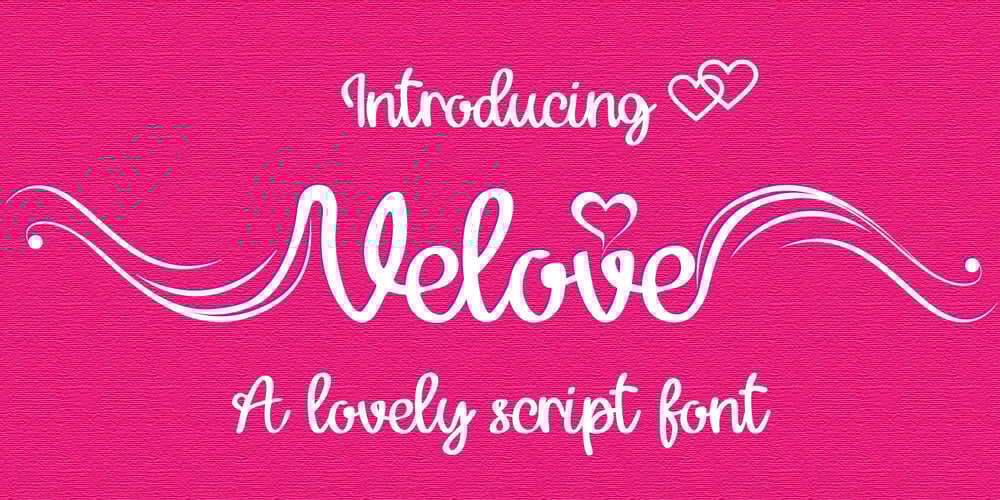
Velove
Velove font
Velove Font Family was designed by Fauzul Azmi and published by PojolType. Velove contains 1 styles and family package options. Thank you for opening this Velove font. The elegant font script is a lot of fun. You can finish your handwriting fast and interesting. With fun curves and twists. Velove is for creating greeting text, invitations, logos, cards, product packaging, headers, t-shirts, certificates,What’s really amazing is that Velove comes with a complete set of uppercase alternatives, and several lowercase alternative options, as well as ligatures that let you create original custom.